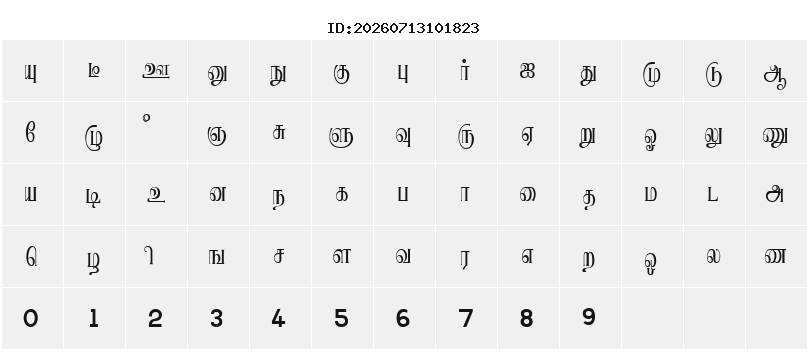
Ranjani Preview
• Font Name: Ranjani
• Font Style: Plain
• Full Font Name: Ranjani Plain
• PostScript Name: Ranjani Plain
About Ranjani.ttf
Ranjani.ttf is a modern, elegant sans-serif font designed for ultimate readability and visual harmony. Perfect for branding, headlines, web design, and print materials.